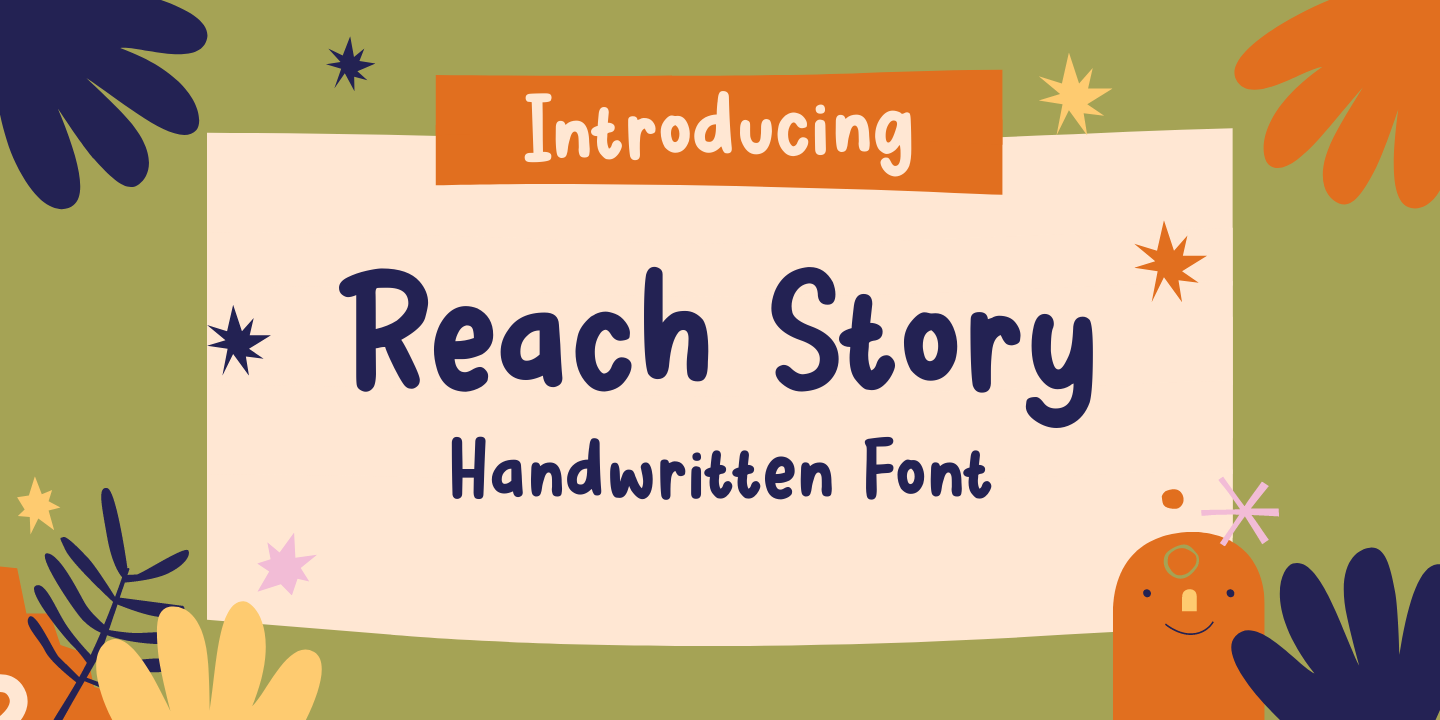
Reach Story Font is perfect for inspirational brand messaging, motivational poster designs, life coaching materials, personal development books, storytelling platform branding, memoir publication layouts, autobiography covers, narrative documentary titles, heartfelt greeting cards, and emotional connection marketing campaigns.
What makes Reach Story Font so exciting is its compelling narrative quality that captures the essence of personal journeys and transformative experiences. This typeface features expressive letterforms with organic flow and emotional depth that evoke the power of storytelling and human connection. The font's warm and authentic character communicates hope and aspiration, making it perfect for brands seeking to inspire audiences through meaningful narratives and create deep emotional connections with people who value personal growth and authentic life stories.
Reach Story Font family includes Regular, Bold, Light, and Italic weights, along with handwritten alternates and storytelling flourishes. The family also features special character sets including heart symbols, inspirational quotes marks, and narrative decorative elements that enhance the font's connection to personal storytelling and emotional communication themes.
Reach Story Font supports comprehensive character sets including Latin alphabets, numbers, punctuation marks, and special inspirational symbols. The font's carefully crafted spacing reflects natural storytelling rhythm while ensuring excellent readability across all applications. Its OpenType features include contextual alternates, narrative ligatures, and emotional decorative elements that expand creative possibilities for inspirational design projects.
Professional designers choose Reach Story Font for projects requiring authentic emotional appeal and inspirational storytelling aesthetics. The font excels in applications where personal connection and meaningful narrative are essential, offering the perfect solution for brands seeking to communicate hope, transformation, and the power of authentic human stories. Its expressive character makes it ideal for life coaches, memoir publishers, and inspirational lifestyle brands.